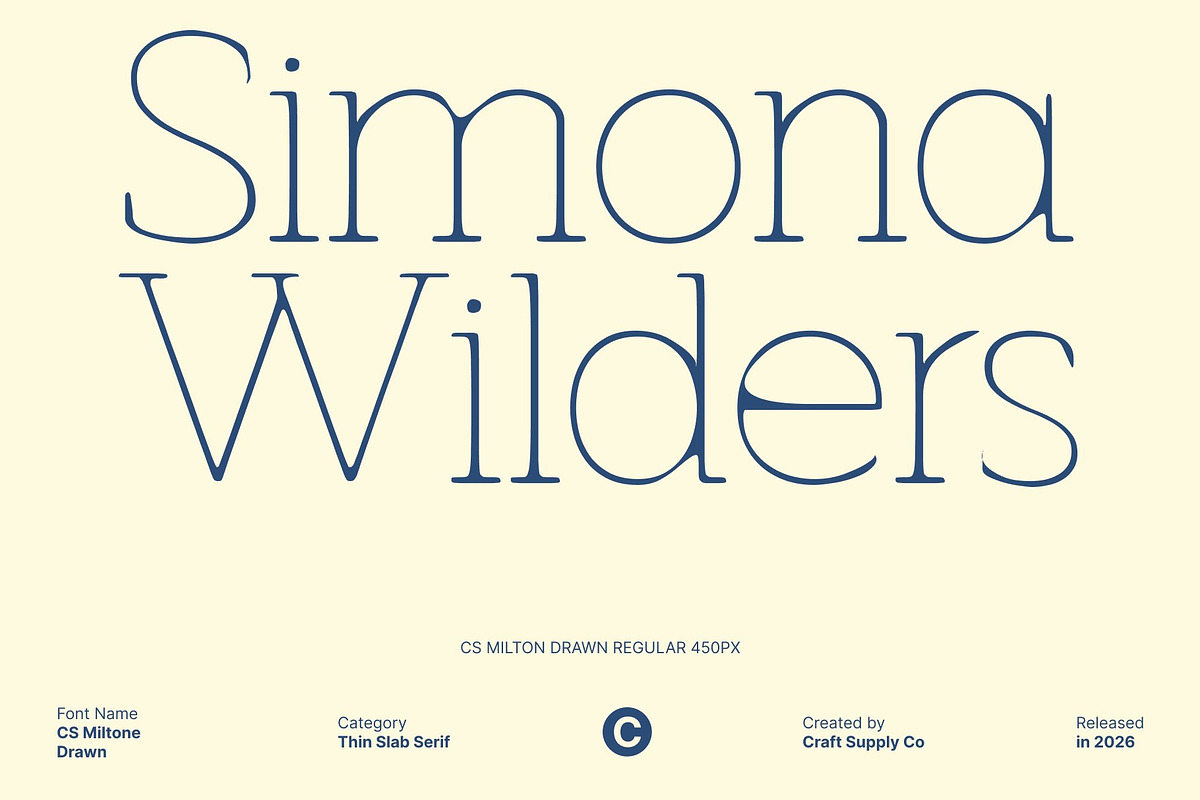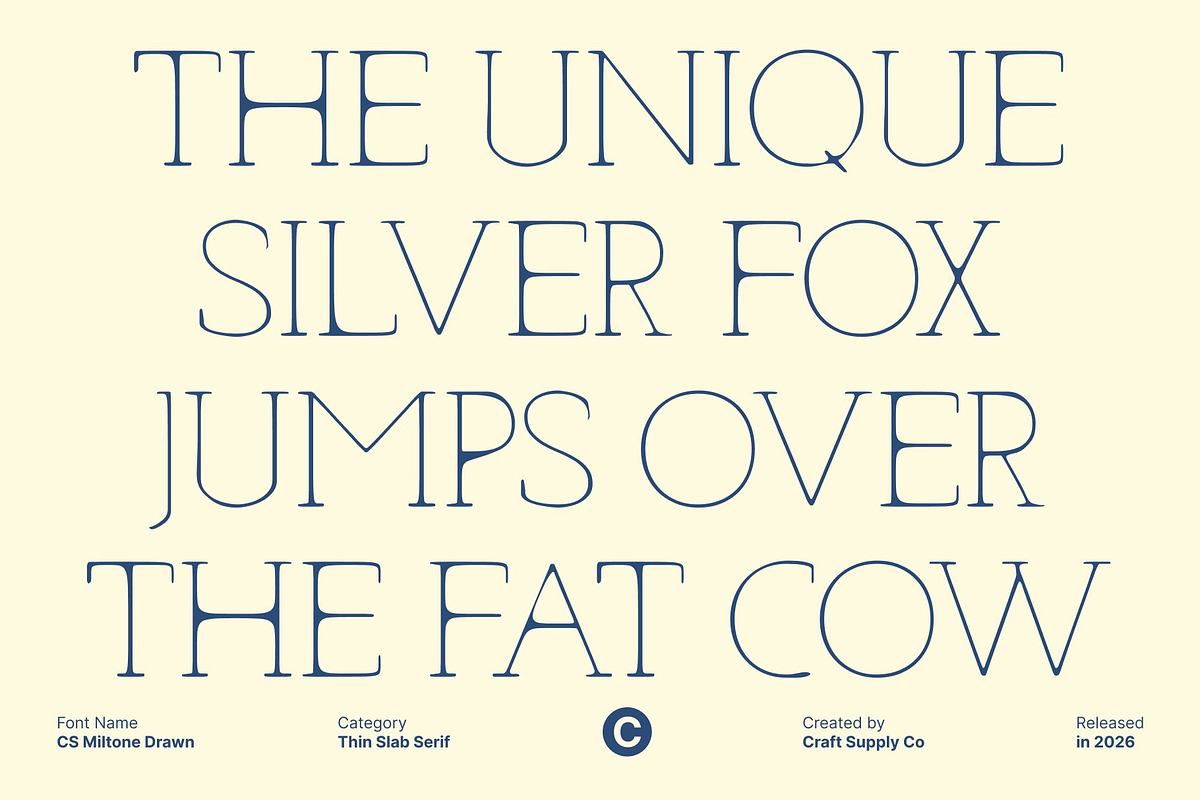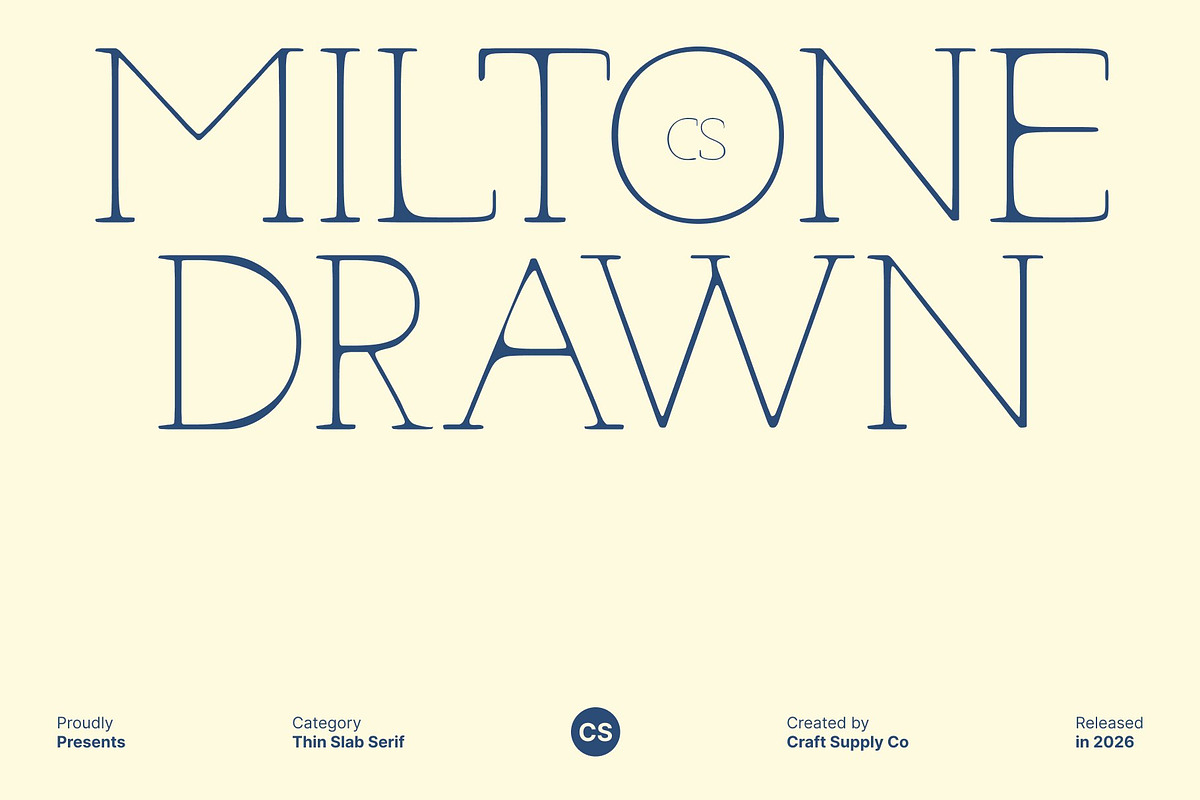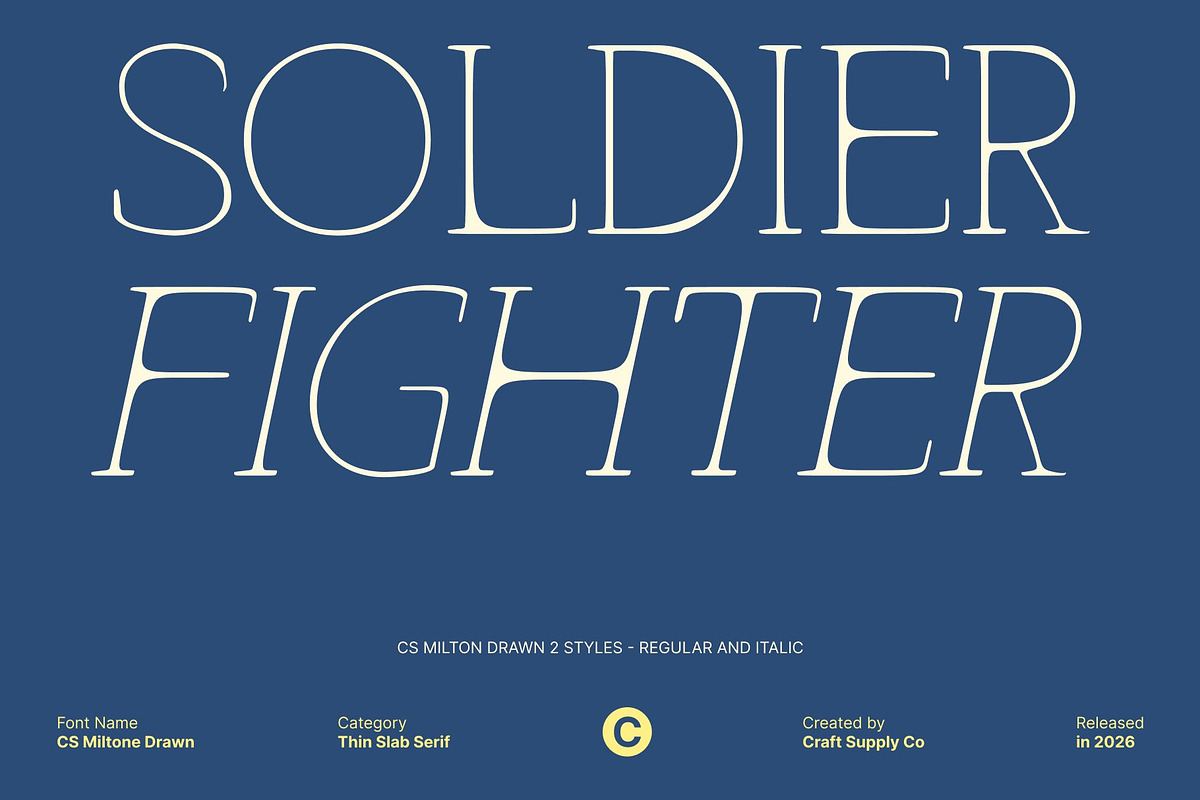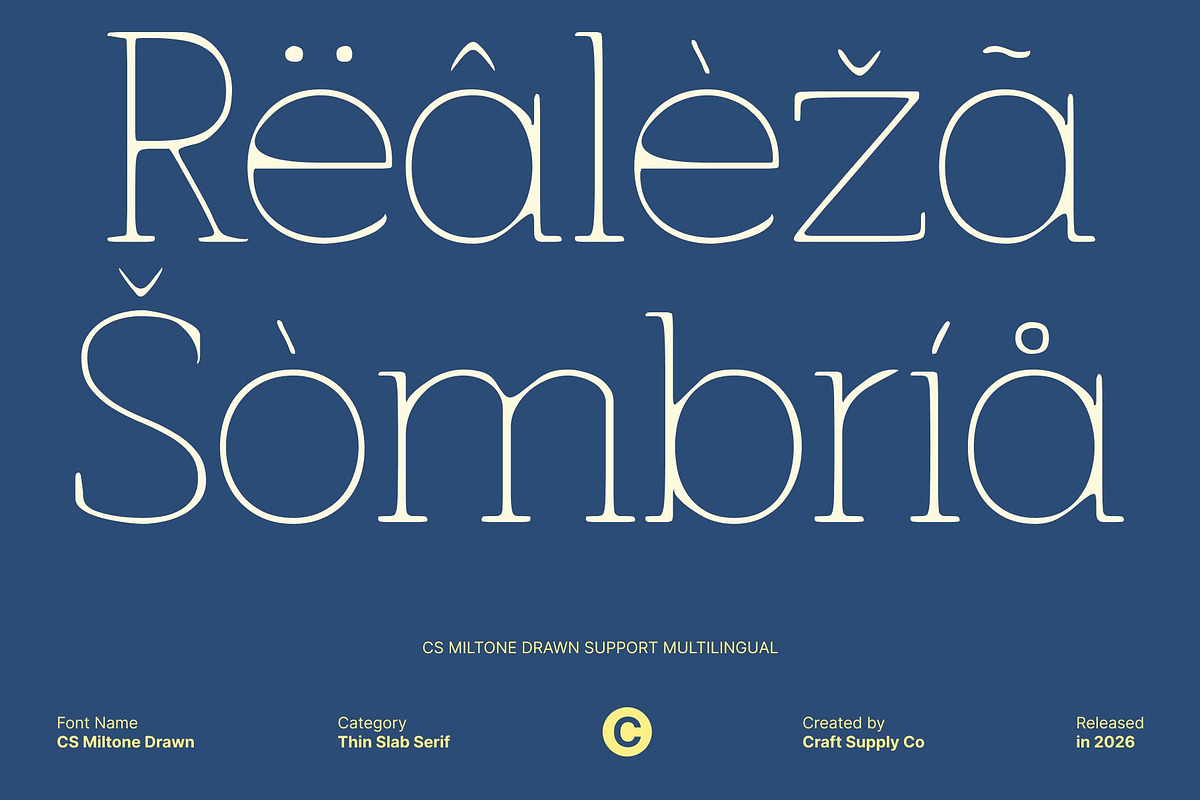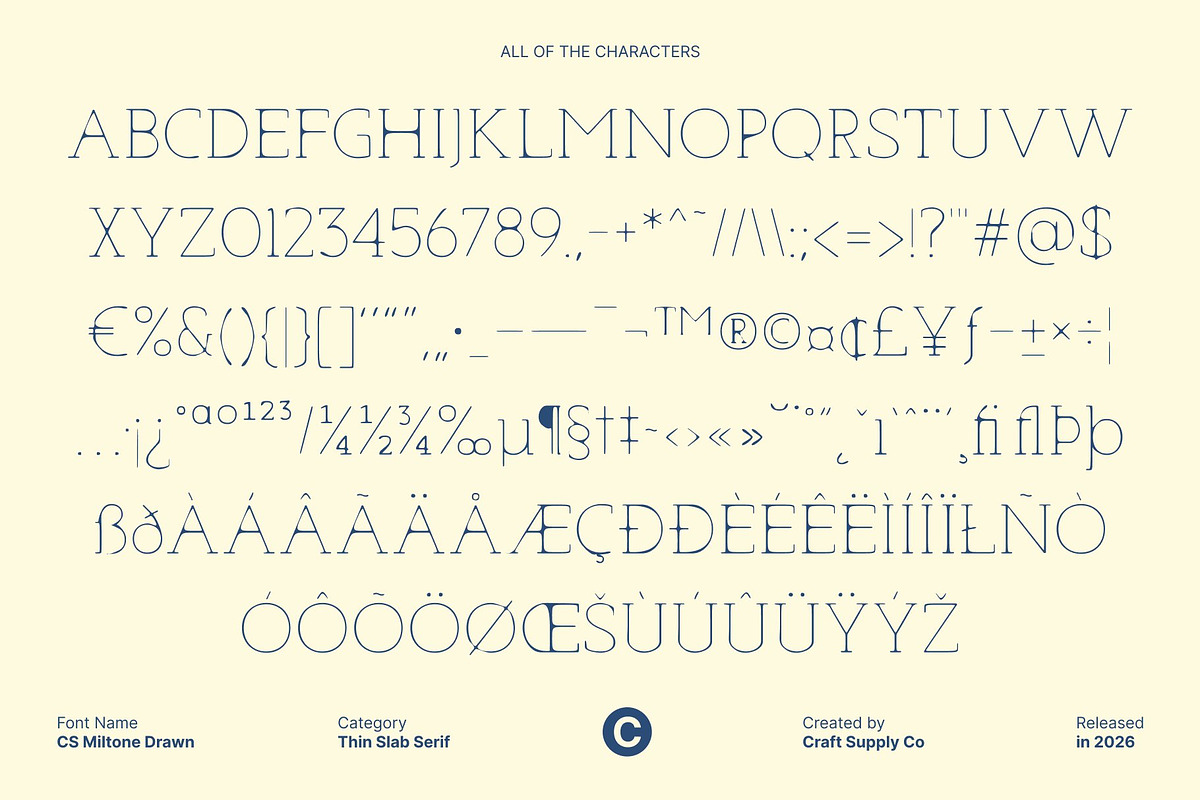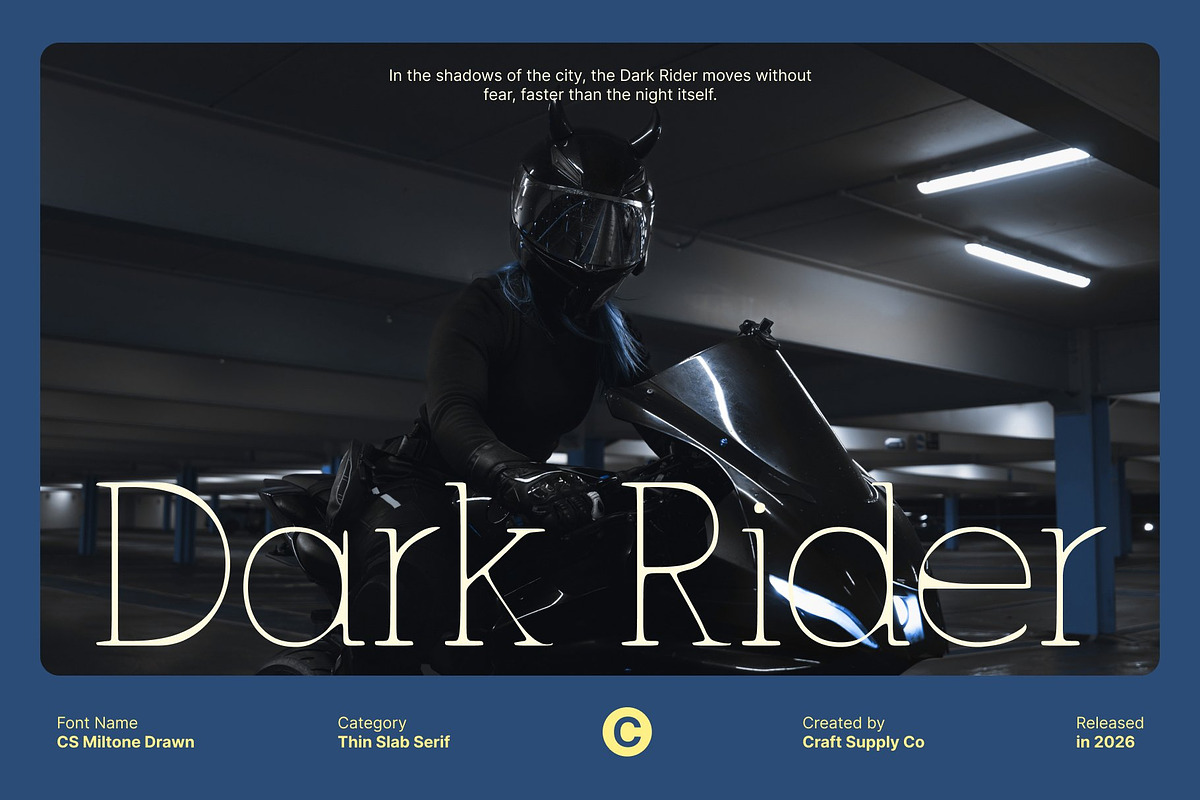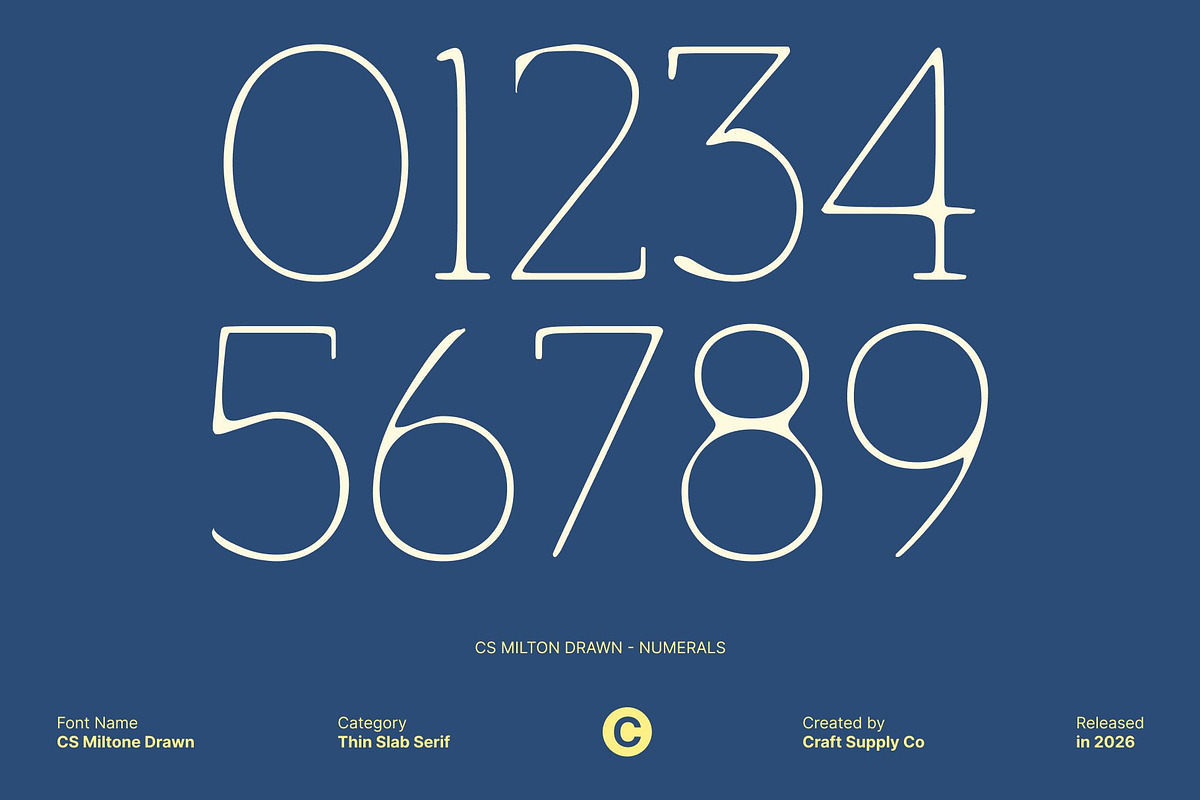
CS Miltone Drawn
CS Miltone Drawn – Minimalist Elegance with Artistic Slab Serif Texture
Thin Slab Serif with Hand-Drawn Character This transforms minimalist slab serif design into an artistic expression. Its thin, precise lines are enriched with subtle hand-drawn textures, giving each letter a lively, handcrafted feel. The balance of modern geometry with organic, irregular strokes ensures the font feels both structured and uniquely expressive, perfect for designers seeking elegance with personality.
Luxury Ligatures with Expressive Flair The font’s luxury ligatures gain an artisanal quality with drawn-style embellishments. Slightly textured connections between letters add a handcrafted charm, elevating the typeface from clean minimalism to a more artistic and engaging design. These refined details allow every word to feel custom-made and full of character.
Organic Minimalism for Versatile Creativity While maintaining minimalist proportions, this font introduces irregular edges and subtle textures that give it a dynamic, tactile presence. Its combination of clean slab forms with hand-drawn imperfections makes it versatile for editorial layouts, modern branding, and creative compositions that require elegance infused with artistic personality.
Perfect for Artistic Logos, Magazines, and Premium Design Ideal for sophisticated yet expressive projects, this font shines in logos, magazine spreads, and premium editorial work. Its distinctive drawn effect, luxurious ligatures, and subtle textures create a typeface that feels alive and artistic while retaining minimalist clarity ensuring designs look stylish, contemporary, and uniquely handcrafted.